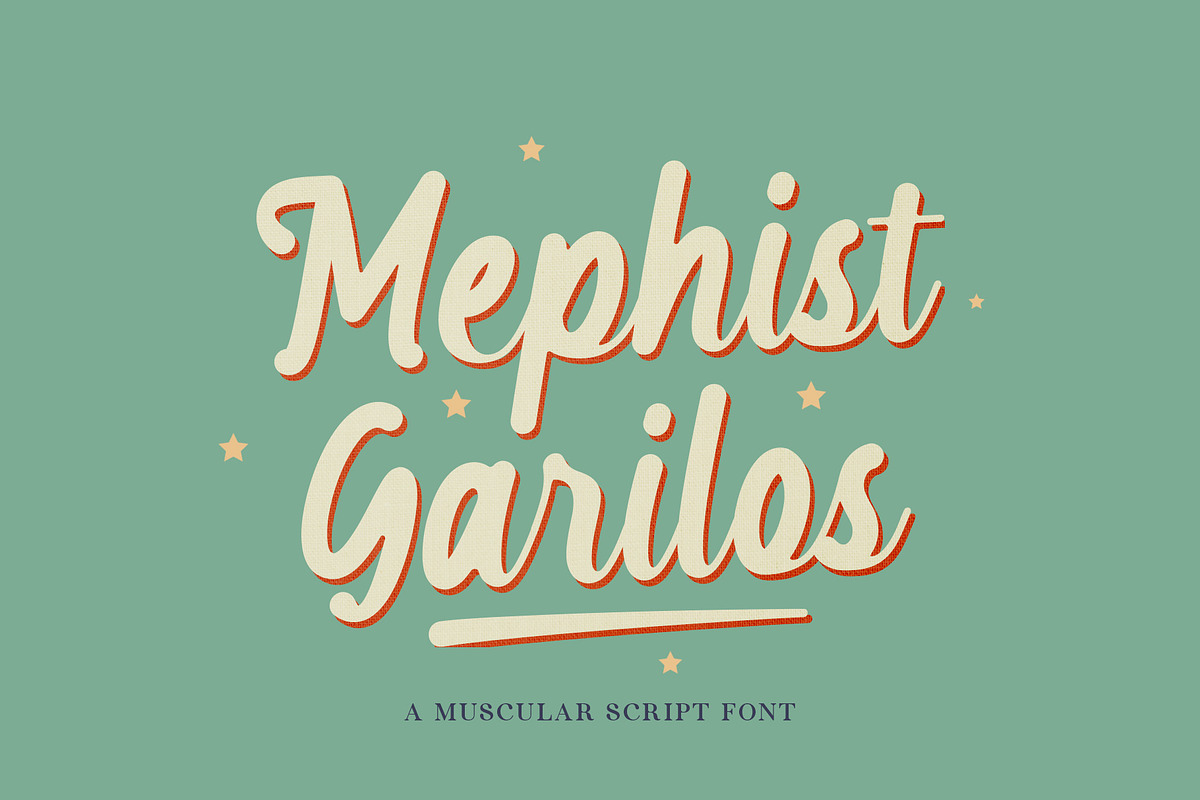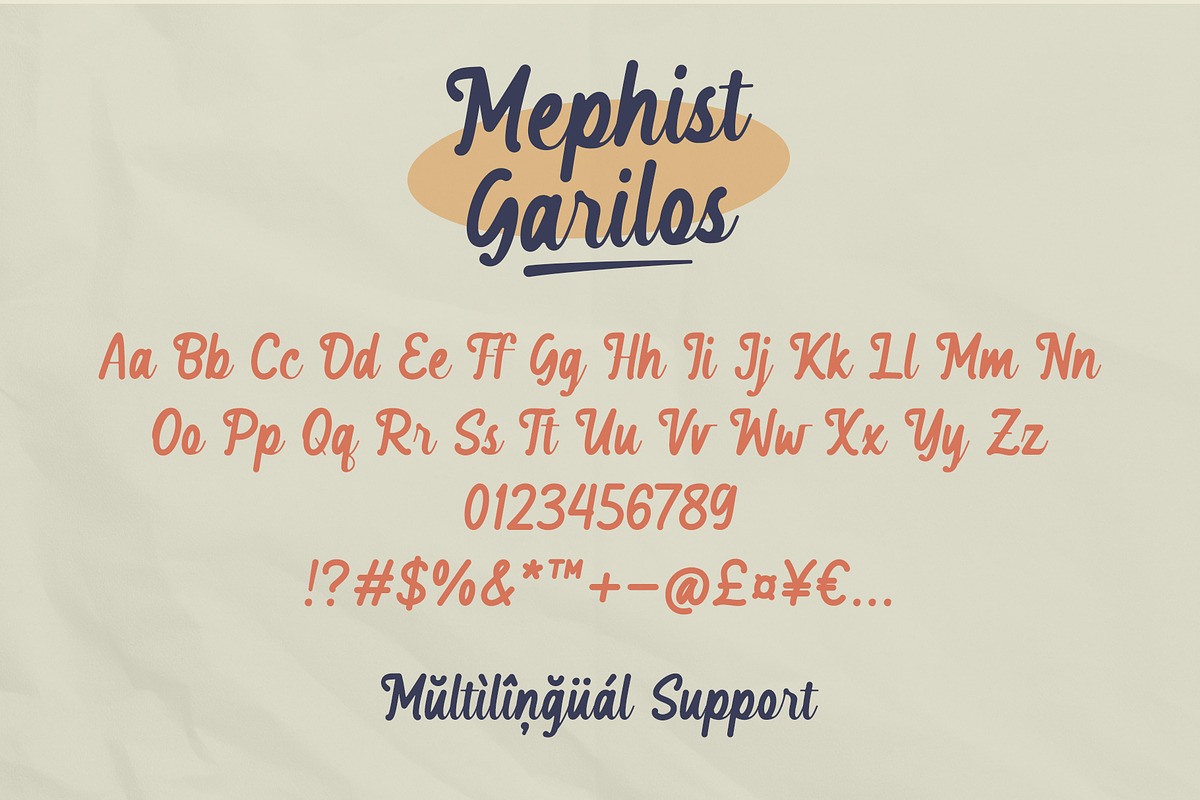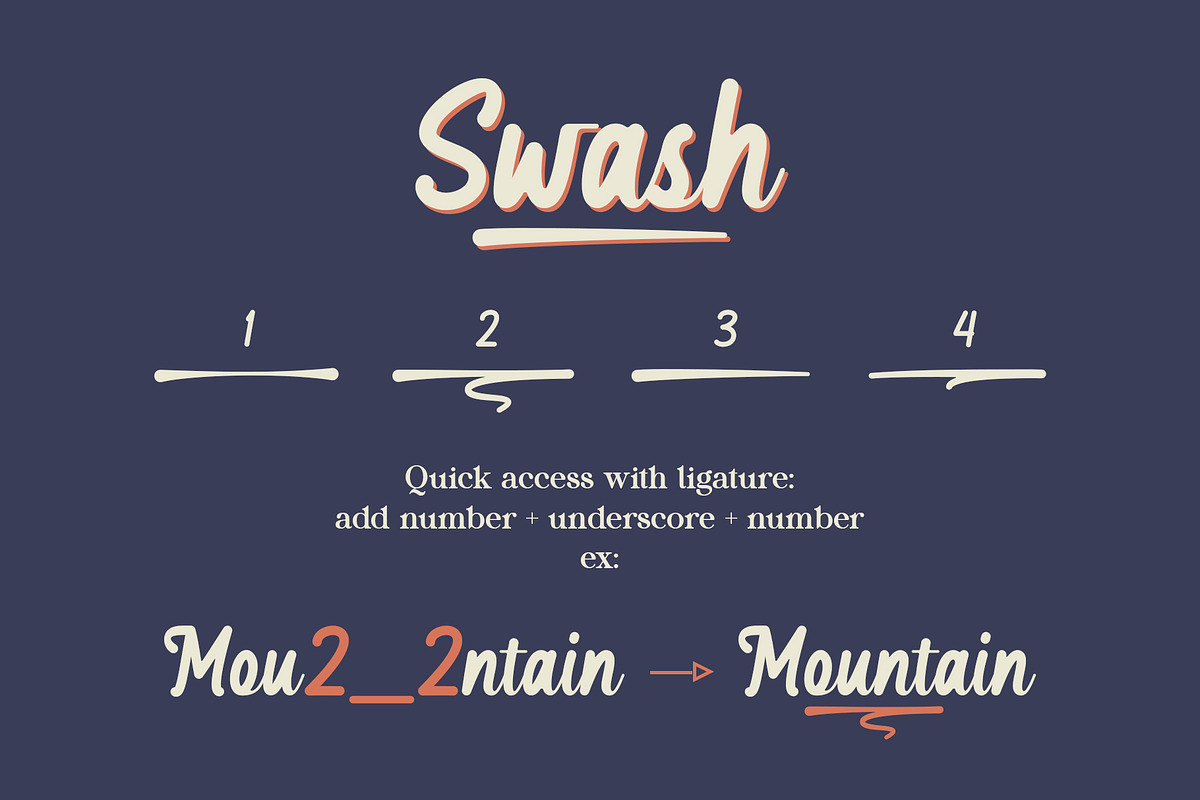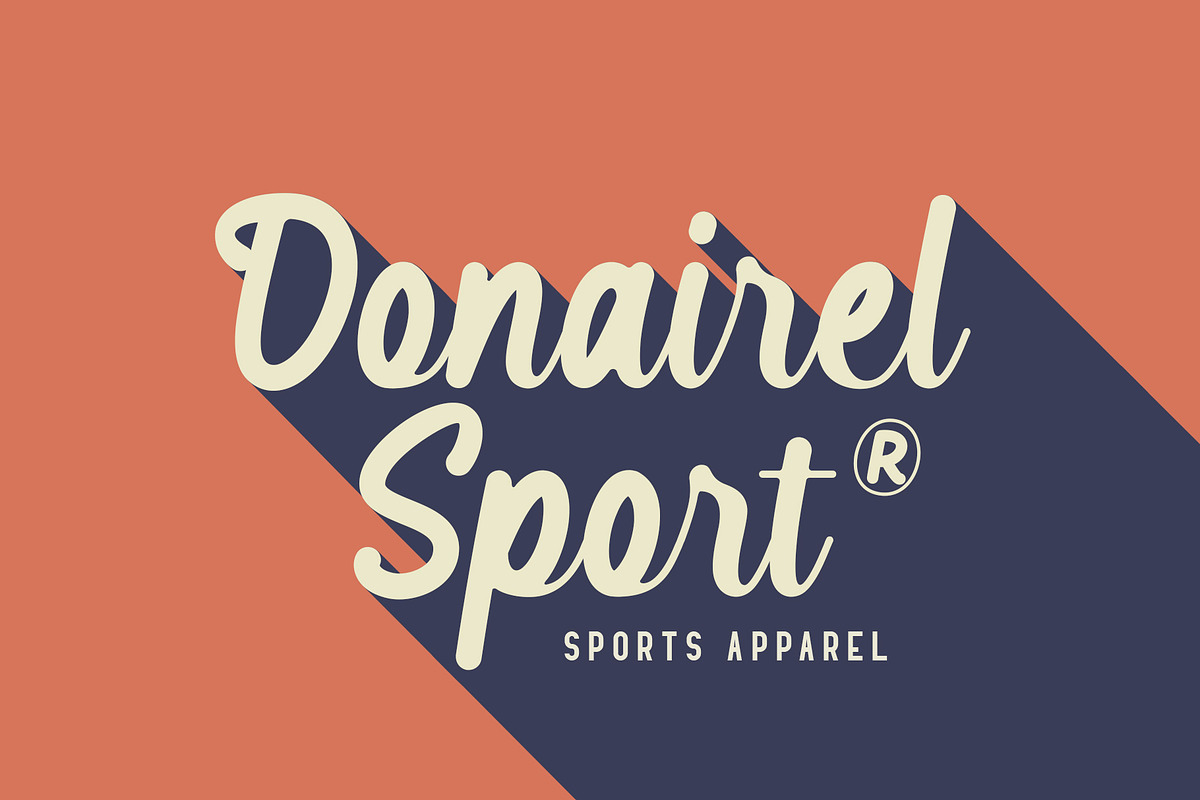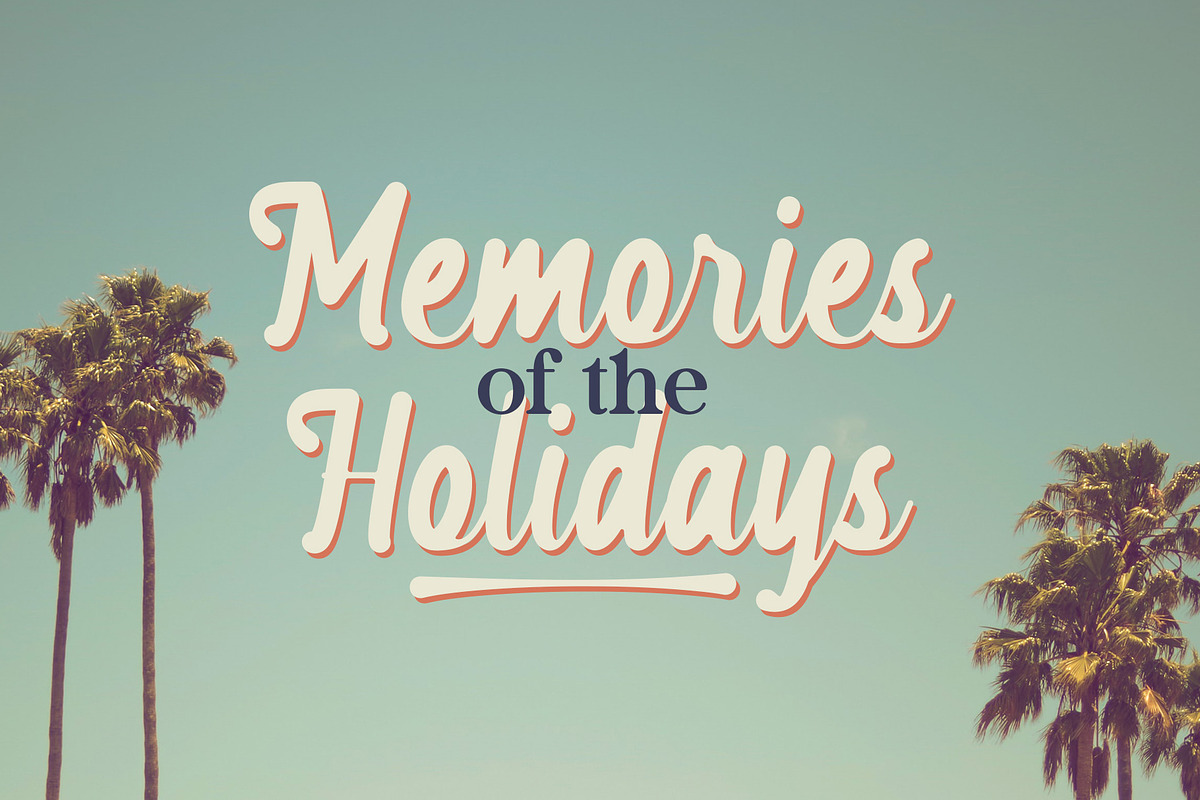
Mephist Garilos | Muscular Script
Mephist Garilos is a muscular script font. Use it to add that special retro touch to any design idea! It is perfect for many different projects such as logos & branding, product designs, labels, and much more!
Quick access swash
- Add number (1-4) + underscore + number (1-4). Ex: 1_1, 2_2, 3_3, 4_4